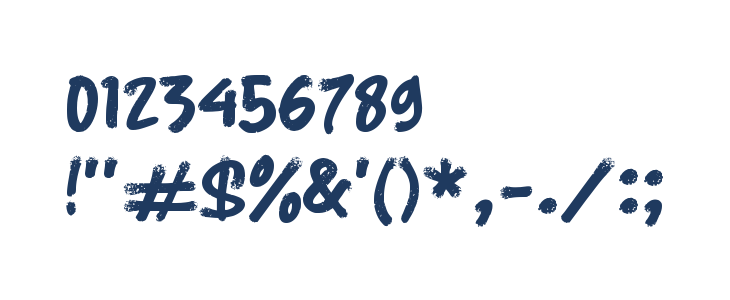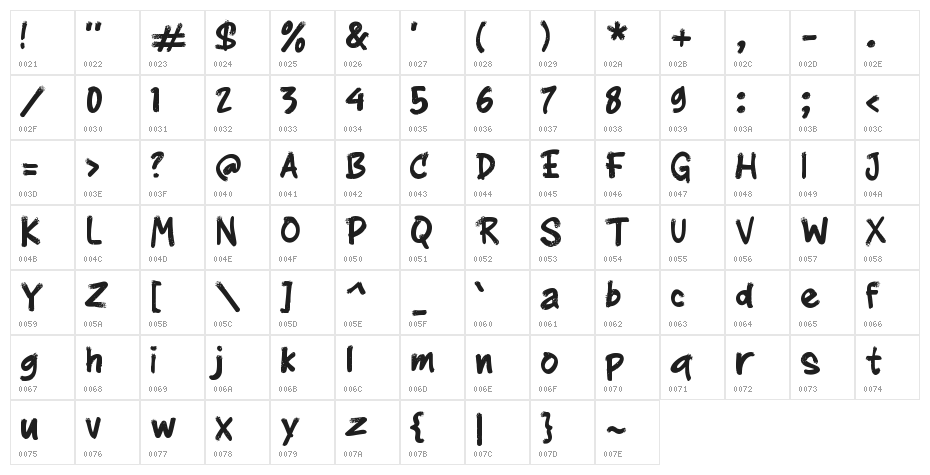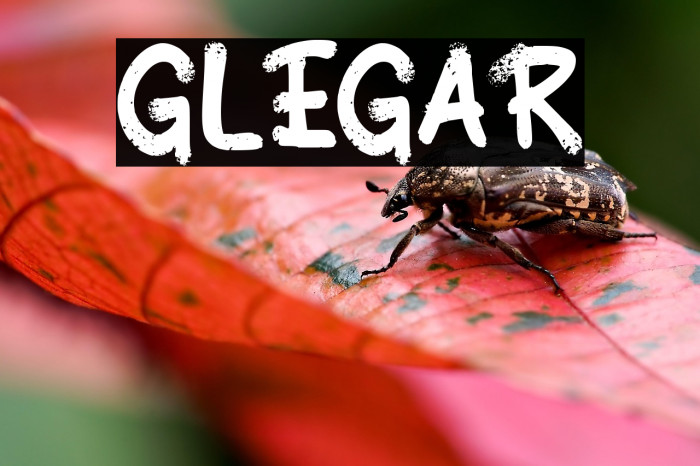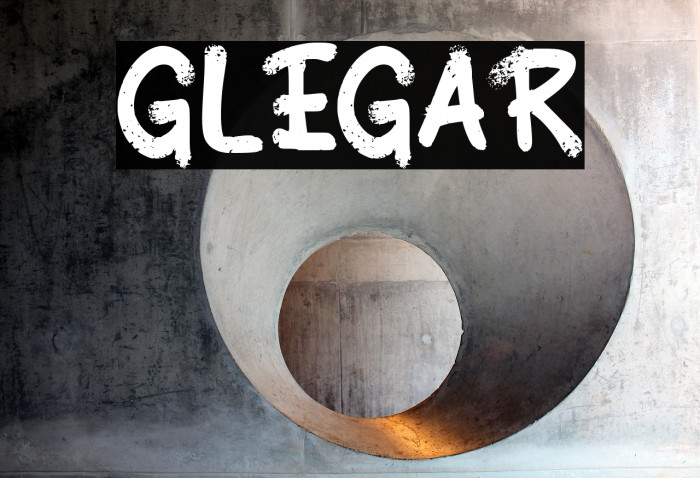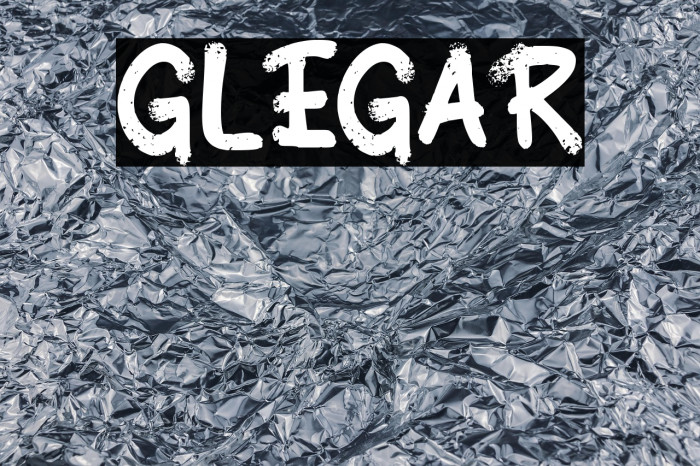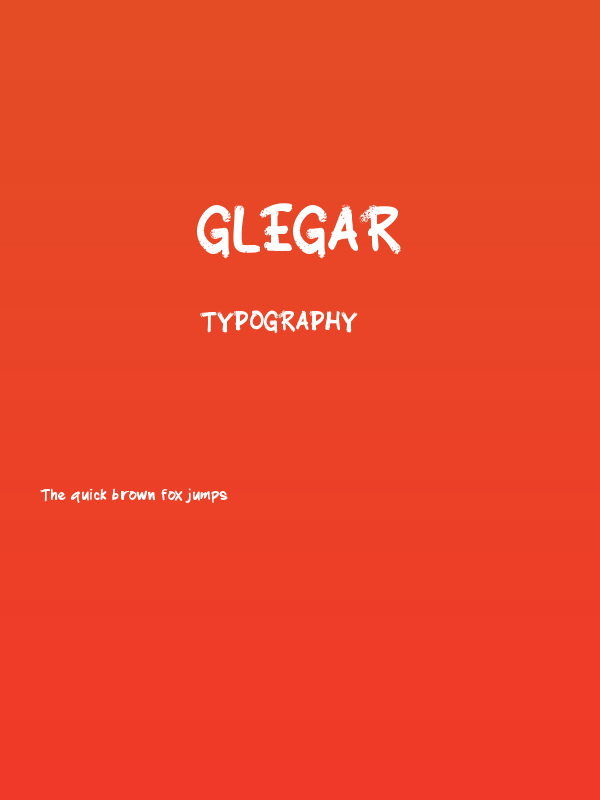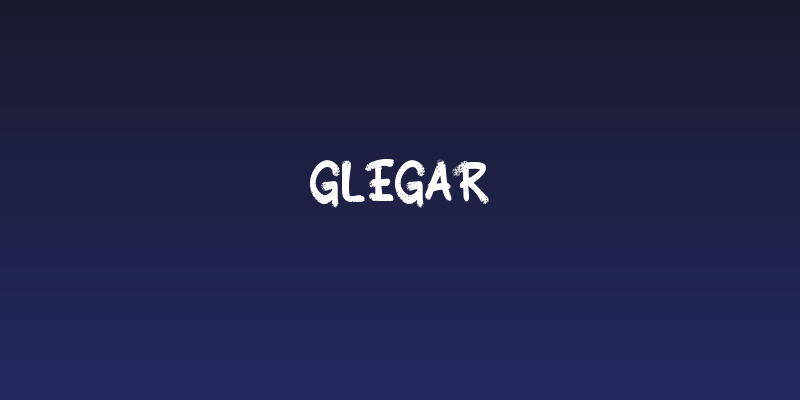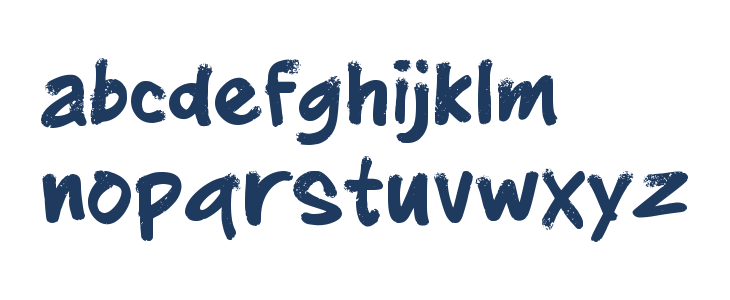
GLEGAR Font
GLEGAR Description
This font features a bold, textured style that mimics the appearance of brush strokes or paint splatters. The characters have a rough, organic feel, with uneven edges and a sense of movement. The uppercase and lowercase letters maintain a consistent boldness, while the numbers and special characters share the same dynamic texture. This font's unique style makes it stand out, offering a raw and artistic aesthetic that can add personality to any design.
| Overall Style | Artistic, Expressive |
| Use Case | Headlines, Posters, Artistic Designs |
| Proposed Projects | Ideal for artistic projects, posters, album covers, and any design needing a bold, expressive touch. |